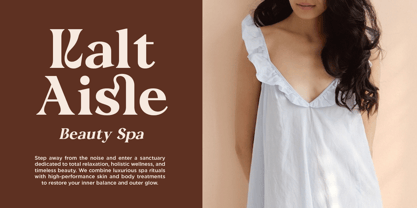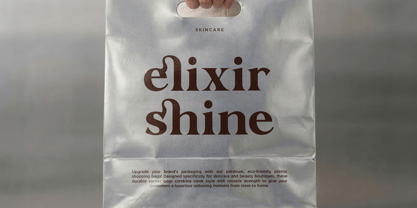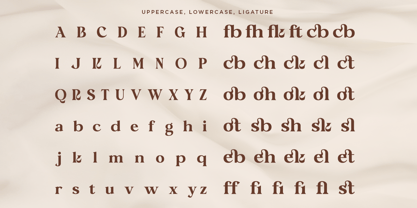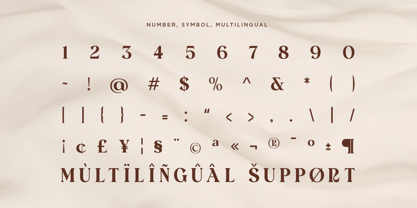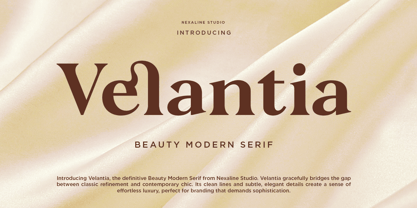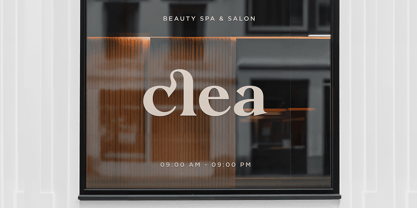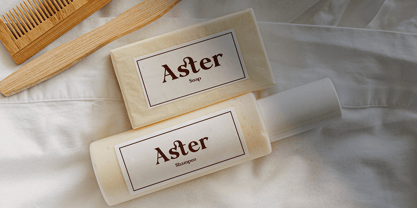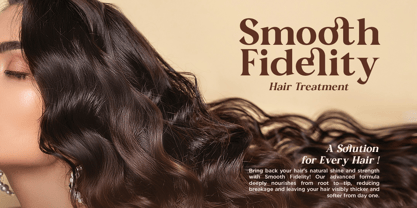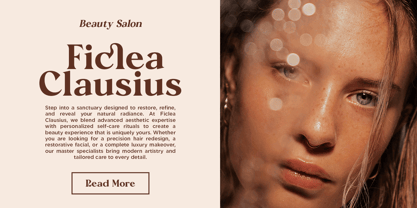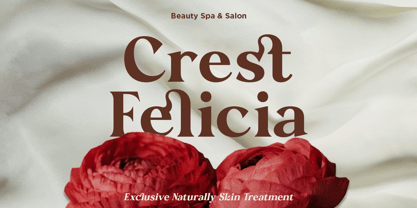
Velantia
by Nexaline Type
The Velantia Font Family was designed by Zaidan Akbar and published by Nexaline Type. Velantia contains 2 styles and family package options. More about this family
Velantia is a graceful display typeface that bridges classic refinement with contemporary chic. Featuring clean structural lines, subtle artistic curves, and distinctive teardrop terminals, this font delivers an aura of effortless luxury. Designed to make a subtle yet high-impact statement, it brings an air of sophistication and organic elegance to modern visual concepts.
Perfect for:
Beauty, Skincare & Luxury Cosmetic Branding
High-End Fashion Magazines & Editorial Titles
Chic Logo Design & Brand Marks
Premium Product Packaging & Labels
Sophisticated Event Stationery & Cards